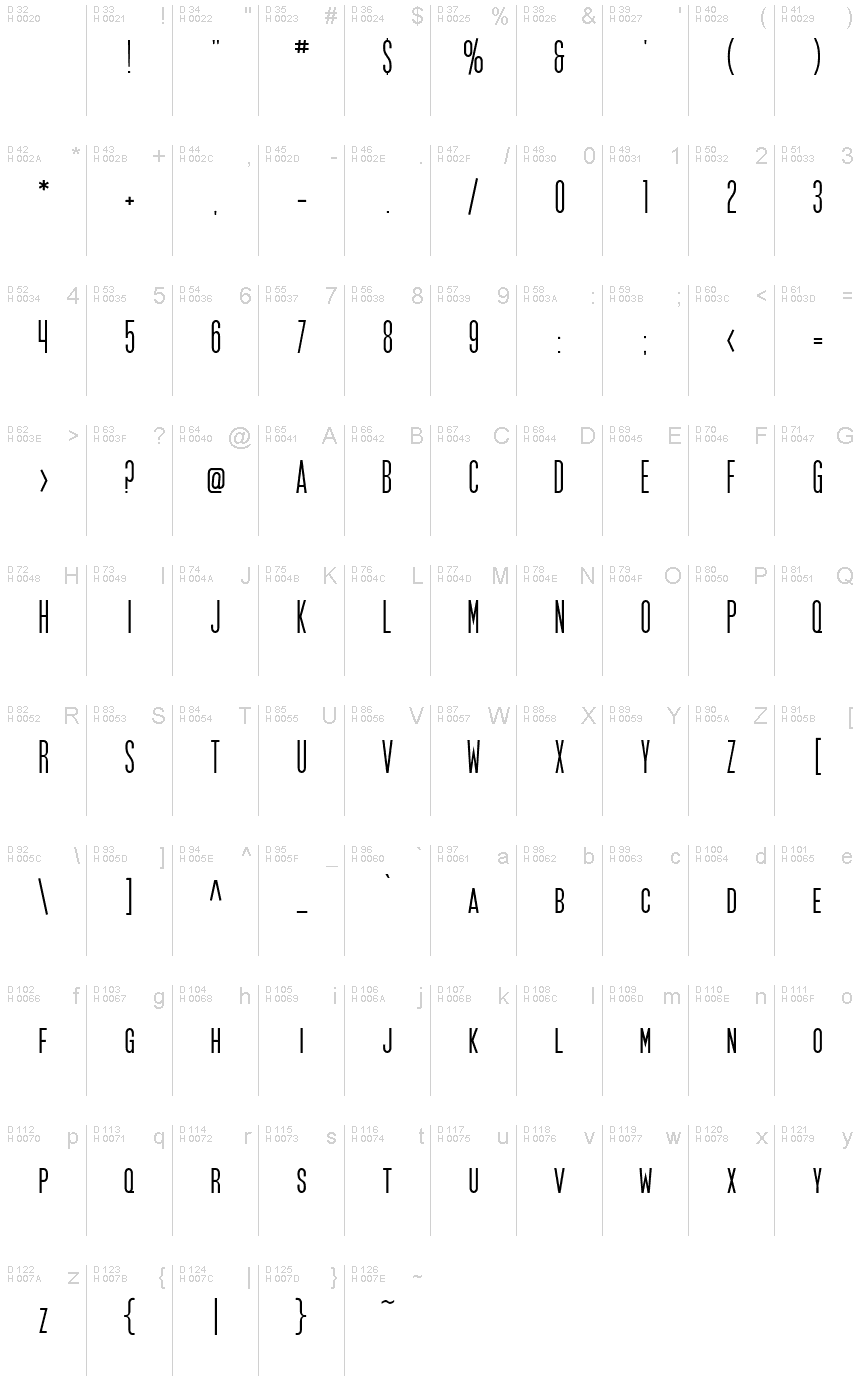
SF Movie Poster
SF Movie Poster, a masterful creation from ShyFonts Type Foundry, encapsulates the essence of cinematic allure in its sans serif strokes. This font boasts a semi-light weight that offers a sleek and modern aesthetic, harmoniously paired with an extra-condensed width that radiates sophistication. The precise curvature and spacing of SF Movie Poster exude a clean, contemporary vibe that is both versatile and visually striking.
This font's streamlined design makes it an ideal candidate for a variety of creative endeavors. From the silver screen's promotional materials to the crisp pages of editorial projects, its legibility and distinct character promise to capture attention. Whether used for titling or text, SF Movie Poster stands out with its unique blend of elegance and modernity, making it suitable for designers seeking to impart an air of professionalism without sacrificing personality.